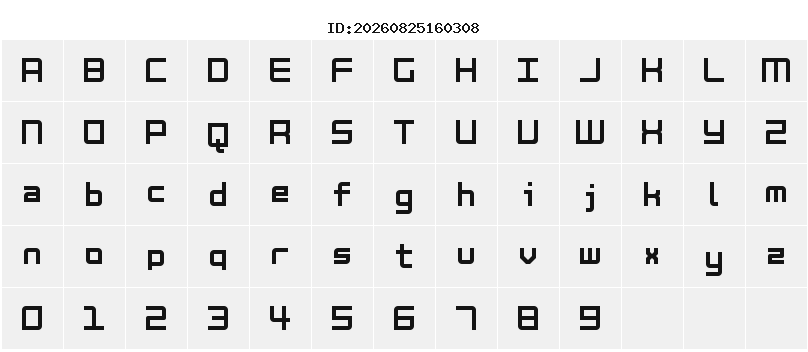
SM Grid Text Rounded Preview
• Font Name: SM Grid Text Rounded
• Full Font Name: SM Grid Text Rounded Regular
• Designer: Daniel Lyons
• Description: ‚ÄúSM Grid Text Rounded‚Äù was built with FontStruct ‚ÄúSM Grid Text Rounded‚Äù is based on ‚ÄúSM Grid Text‚Äù by ‚ÄúDaniel Lyons‚Äù (http://fontstruct.com/fontstructors/dlyons123)
About SM Grid Text Rounded.ttf
SM Grid Text Rounded.ttf is a modern, elegant sans-serif font designed for ultimate readability and visual harmony. Perfect for branding, headlines, web design, and print materials.